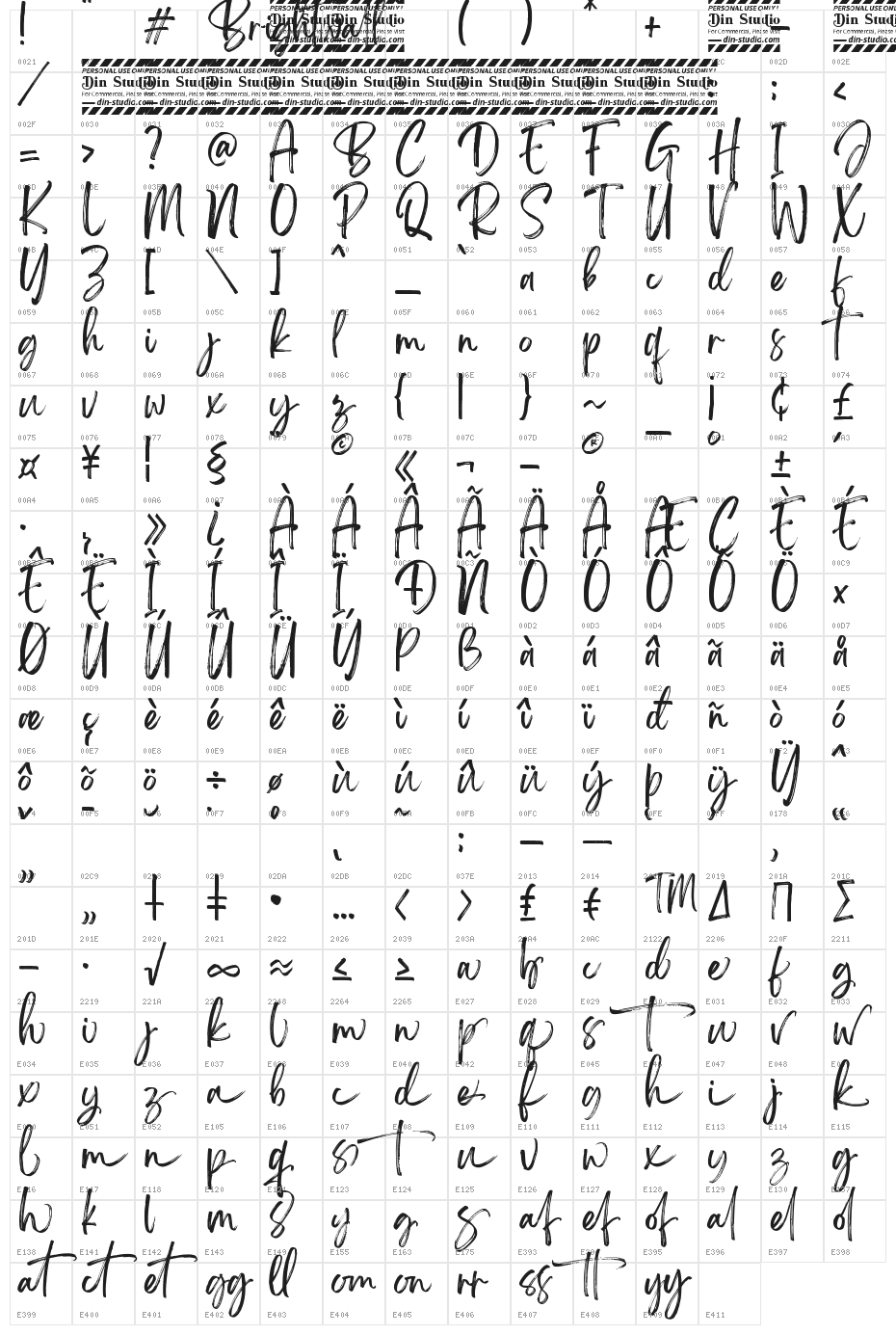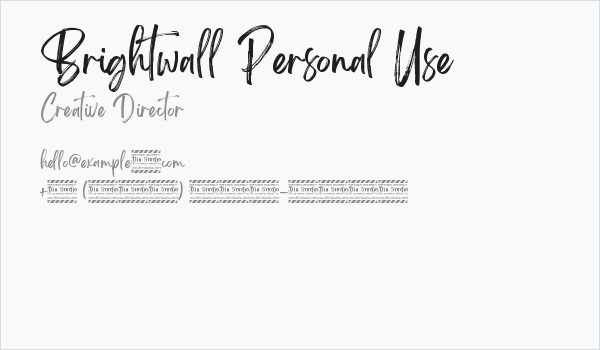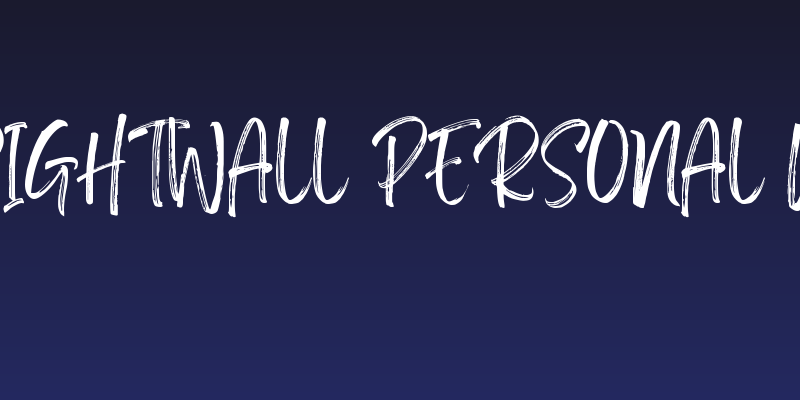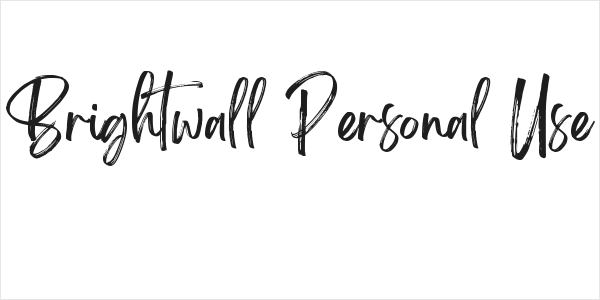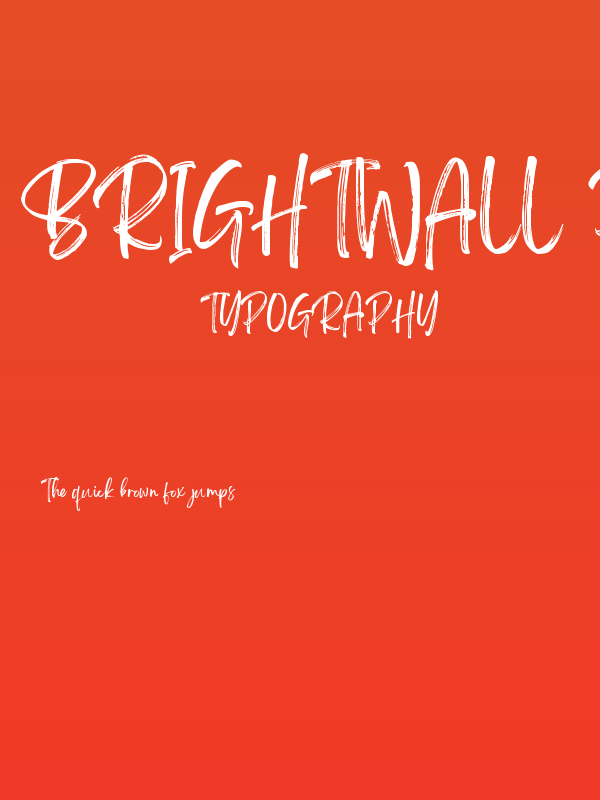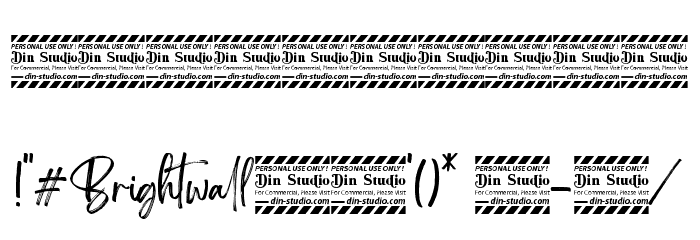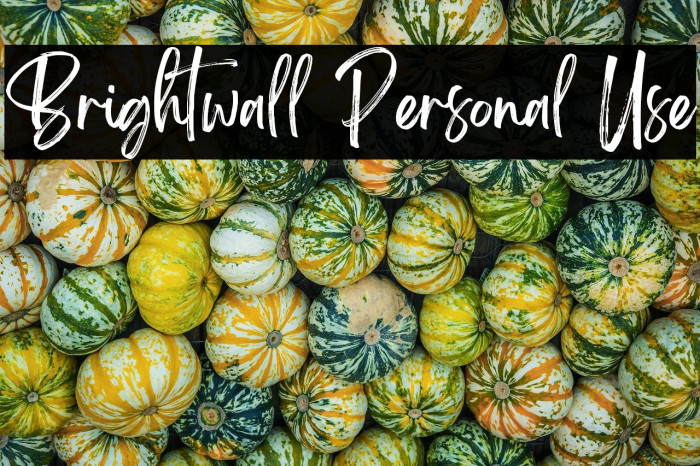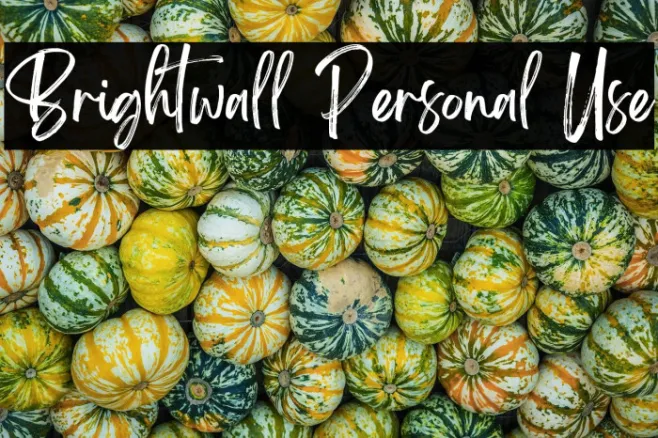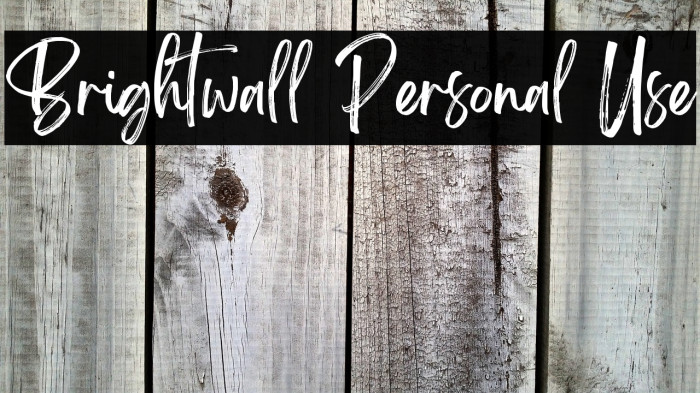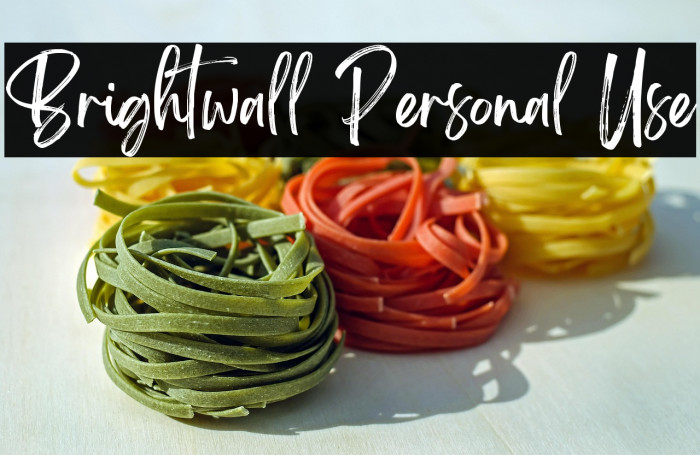
Brightwall Personal Use Font
Brightwall Personal Use Description
This expressive and artistic font features a handwritten style with a dynamic and fluid appearance. The strokes are bold and varied, giving each character a unique and lively feel. The uppercase letters are tall and slightly slanted, while the lowercase letters maintain a consistent flow with a more rounded form. The font includes a full set of numerals and a selection of special characters, all maintaining the same energetic and creative style. The brush-like texture adds a personal touch, making it ideal for projects that require a human element.
| Proposed Projects | Ideal for creative projects such as invitations, greeting cards, posters, and branding materials that require a personal and artistic touch. |